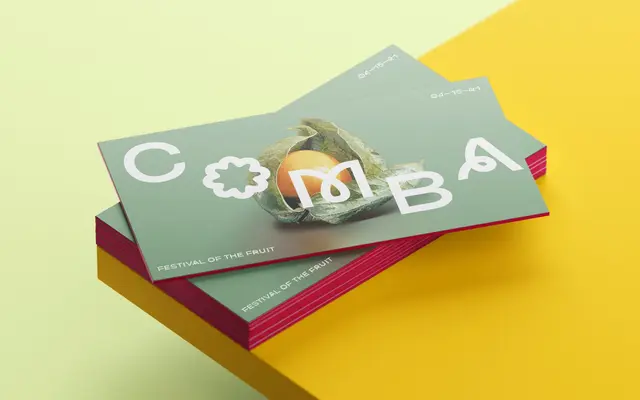
A single-weight ultra-wide display sans with deliberately quirky letterforms, built for headlines and bold graphic applications.
Comba comes in one style only: Bold Ultra Wide, with an x-height of 580 and ascenders stretching to 1000, giving it a pronounced vertical presence despite its width. Character-level alternates are available for A, J, O and several others, offering some compositional flexibility. Coverage extends across Latin Extended-A and B with a full set of diacritics, making it usable across a reasonable range of European languages.
Self-described as a quirky display sans serif, Comba is an ultra-wide bold display face with idiosyncratic letterforms suited to headlines and branding rather than text use.